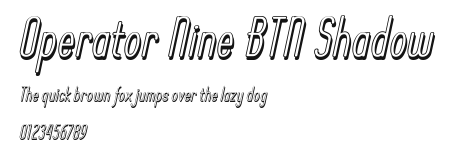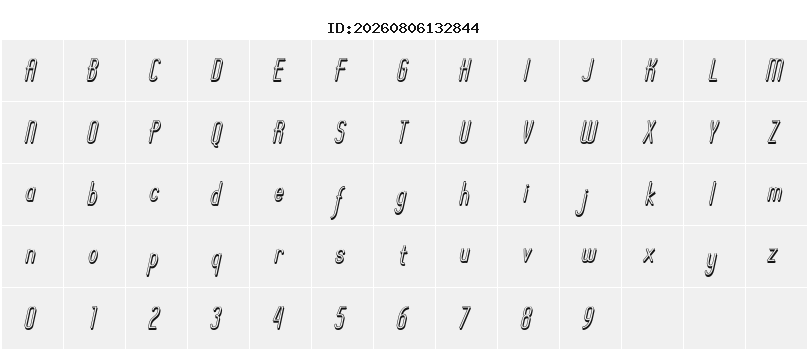
• Font Name: Operator Nine BTN Shadow
About Operator Nine BTN Shadow.ttf
Operator Nine BTN Shadow.ttf is a modern, elegant sans-serif font designed for ultimate readability and visual harmony. Perfect for branding, headlines, web design, and print materials.